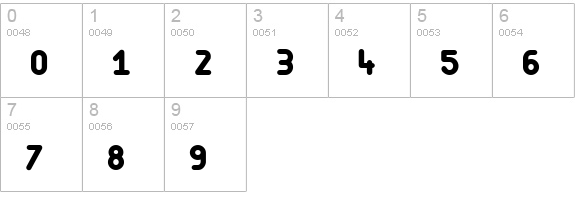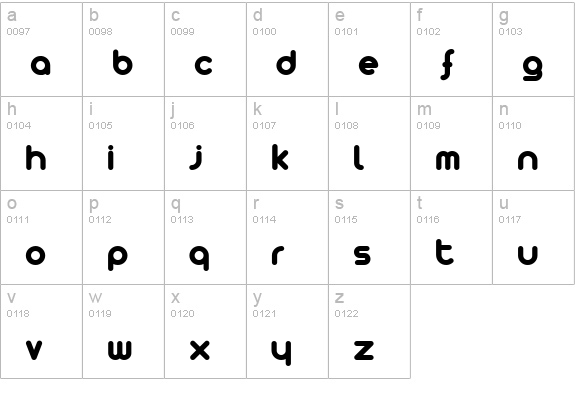
Arista Font Details
Arista font is a modern and elegant typeface that exudes sophistication and style. With its sleek lines and subtle curves, Arista is perfect for adding a touch of class to your design projects. This versatile font is suitable for a wide range of applications, from branding and logos to invitations and packaging. The best part about Arista font is that it is completely free to download. You can easily access this stunning typeface at FontsMarket.com, where you can explore a variety of styles and weights to suit your creative needs. Whether you're a professional designer or an amateur enthusiast, Arista font is sure to elevate your projects with its timeless appeal and effortless charm. Don't miss out on this amazing opportunity to enhance your designs with the beauty of Arista font!